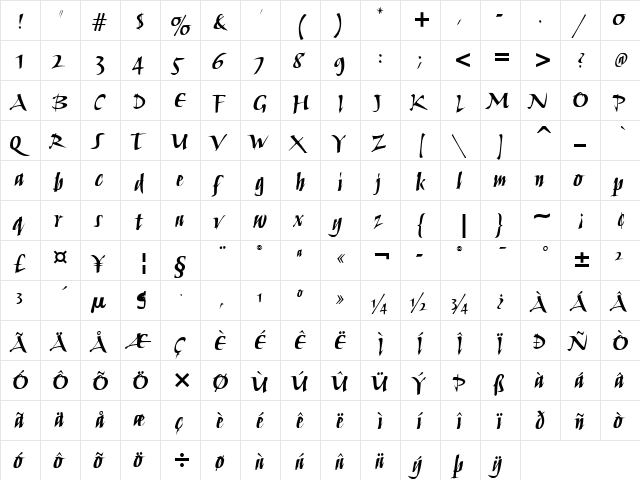
Humana Script ITC Bold Font Preview
Design Context for Humana Script ITC Typeface
Humana Script ITC flows with the natural rhythm of handwritten lettering, making it ideal for designs that call for warmth and personal expression. Its bold stroke weight gives it real presence on the page.
Font Pairing: Combine Humana Script ITC with a simple geometric sans for maximum contrast — the tension between flowing curves and clean structure is a classic typographic pairing.
Pro Tip: Pair Humana Script ITC with a clean sans-serif for supporting text. The contrast between fluid script and geometric structure creates an elegant typographic hierarchy.